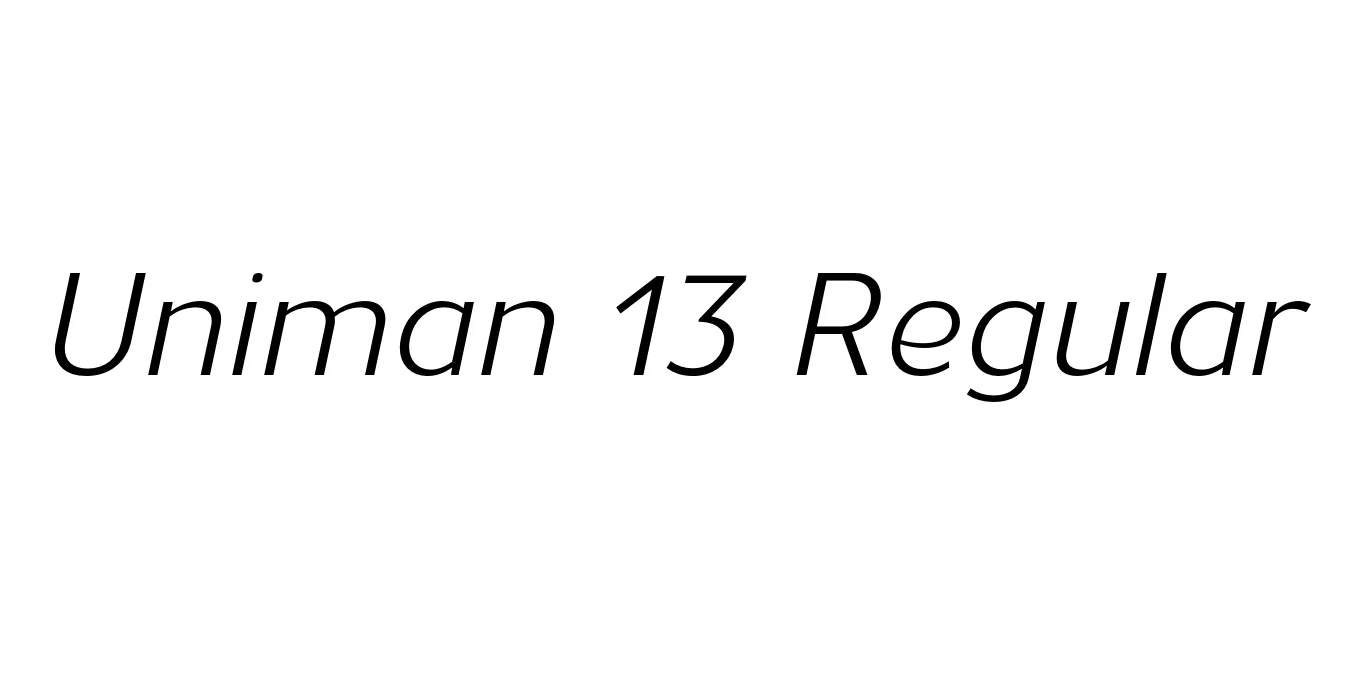
Uniman 13 Regular
Designed by Rian Hughes
Uniman 13 Regular is a sleek, modern sans-serif typeface designed by the renowned British graphic artist Rian Hughes. Part of the larger Uniman family released through Device Fonts, this typeface is built upon a modular framework that emphasizes geometric precision and industrial clarity. Its clean lines and consistent stroke weights make it an ideal choice for contemporary projects that require a sophisticated yet functional aesthetic.
The design of Uniman 13 Regular bridges the gap between technical monospaced styles and high-end proportional sans-serifs. It is particularly effective in high-tech environments, corporate branding, and digital interfaces. Because of its balanced spacing and open counters, the font maintains high legibility even at smaller point sizes, making it a versatile tool for both print layouts and modern web design applications.
Uniman 13 Regular Best Uses
Perfect for user interface elements and navigation menus due to its high legibility.
Ideal for technology and manufacturing companies seeking a professional and modern look.
Suitable for technical manuals, magazines, and brochure body text.
Excellent for minimalist display headlines and promotional graphics.